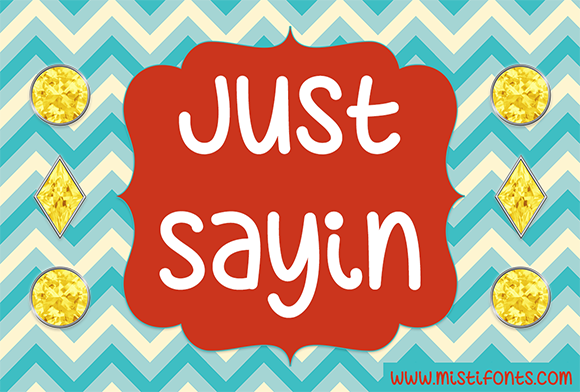
Just Sayin Font
About Just Sayin Font
Just Sayin is a warm, friendly, and cheerful font.  Reminiscent of childlike handwriting, this sans serif will add a touch of fun and impishness to any design or project.